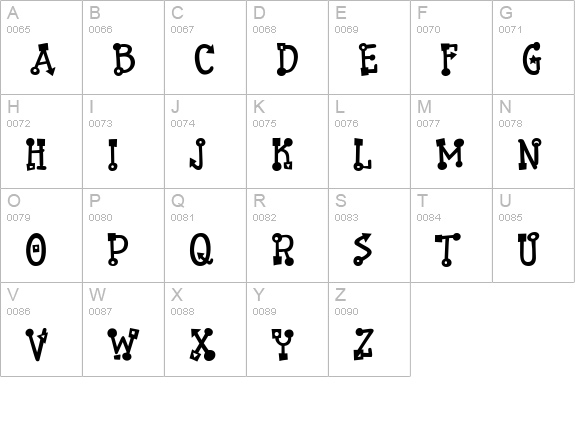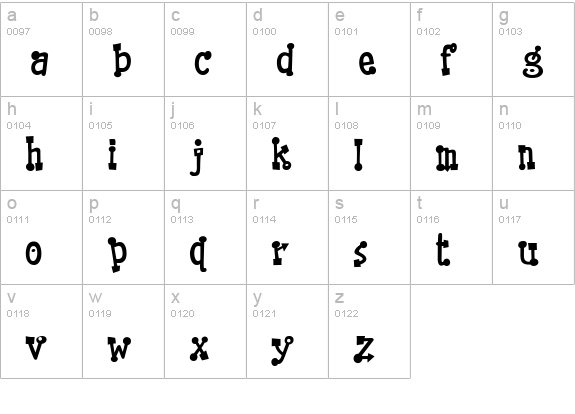
0 Bills Holiday DNA Font Details
Introducing the 0 Bills Holiday DNA font - a whimsical and playful typeface perfect for adding a touch of fun to your design projects. This font features quirky characters that exude creativity and charm, making it ideal for various applications such as greeting cards, invitations, posters, and more. What sets the 0 Bills Holiday DNA font apart is its unique blend of elegance and playfulness, making it a versatile choice for both professional and personal projects. Whether you're looking to create a cheerful holiday card or a lively event poster, this font has got you covered. Best of all, the 0 Bills Holiday DNA font is completely free to download at FontsMarket.com. So go ahead and unleash your creativity with this delightful typeface and bring your designs to life with its cheerful and vibrant aesthetic. Download it today and let your imagination run wild!